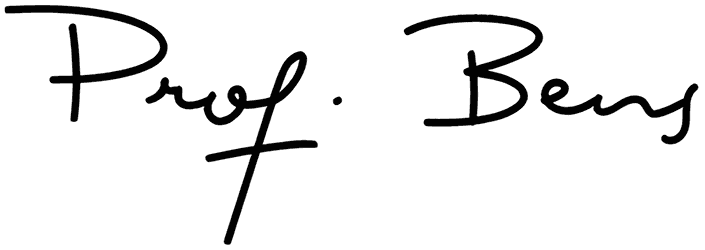
Prof. Bens Font
Who can deny the charm of artistic and casual words? As a calligraphy font with a realistic hand-lettering face, Prof. Bens can create this style for your text. With a full cover of characters, Prof. Bens font will be an appealing choice for modern formal or informal designs. House this signature font on your future layouts, from branding to magazines, and be salient.